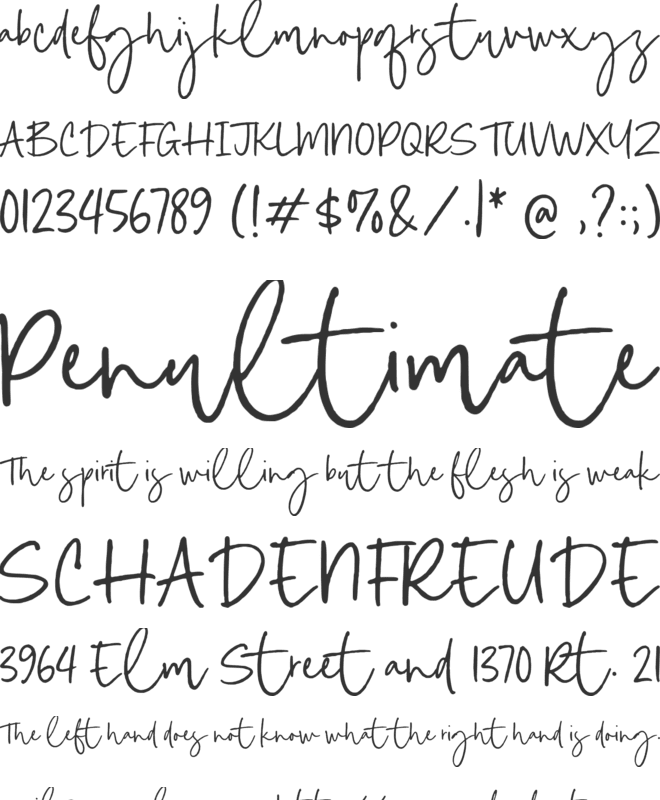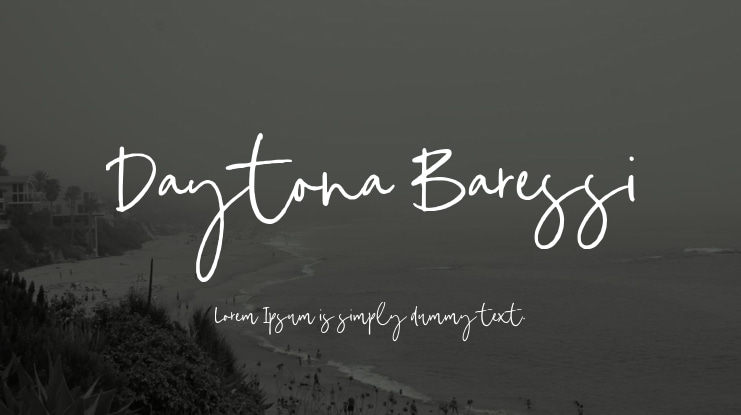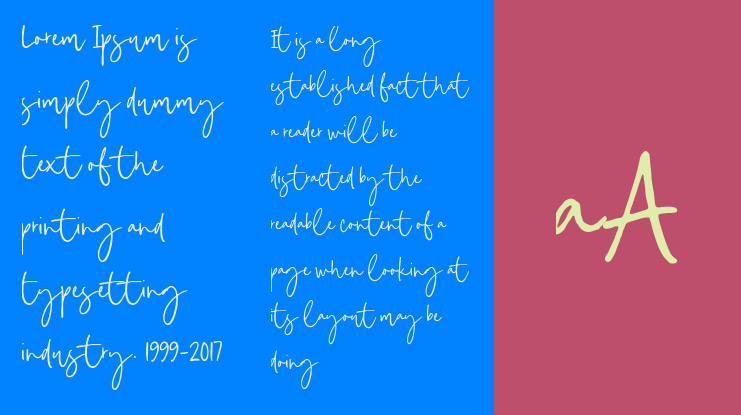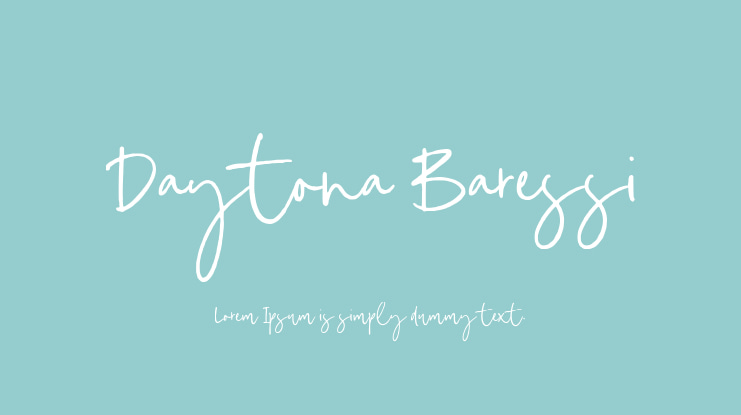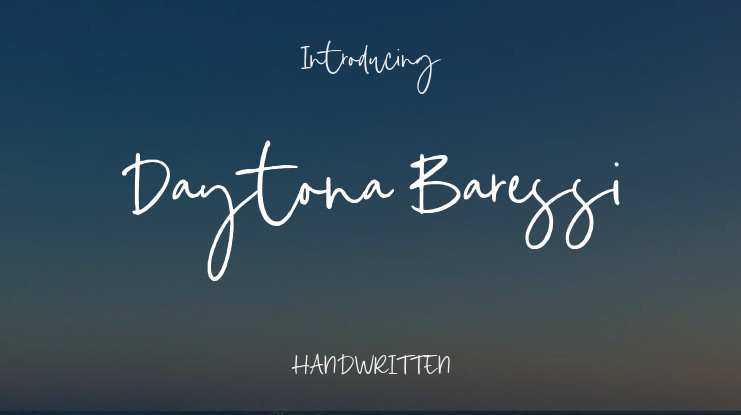
Daytona Baressi Font
Introducing Daytona Baressi, crafted by Timurtype Studio!
Daytona Baressi is a distinctive rough handwritten font that exudes casual elegance. Its bold strokes and natural imperfections provide a sense of authenticity and warmth, ideal for projects needing a personal touch. Whether for branding, invitations, or creative displays, Daytona Baressi adds a stylish, handcrafted feel, resonating with a relaxed, artistic vibe.
Daytona Baressi also supports multiple languages.